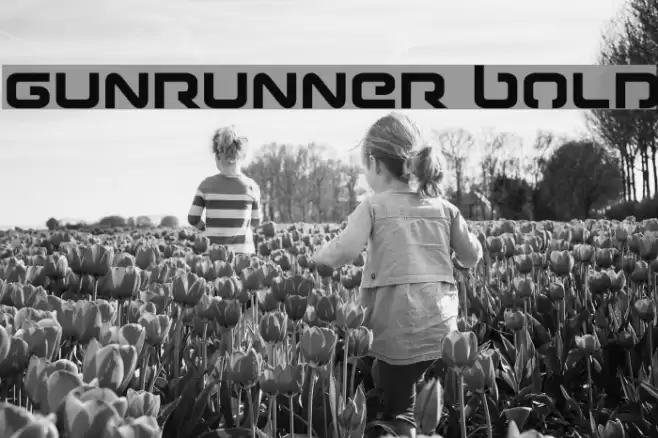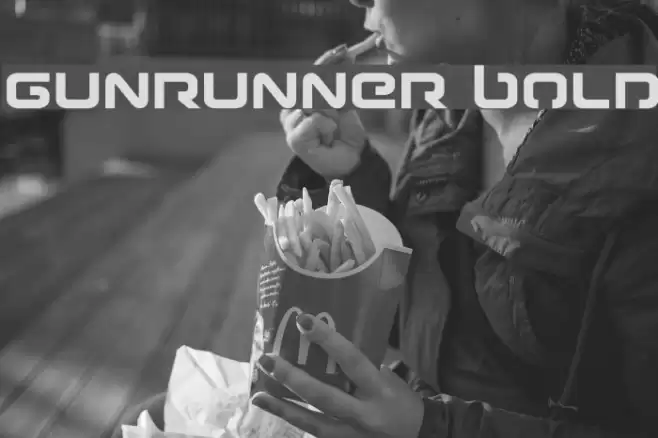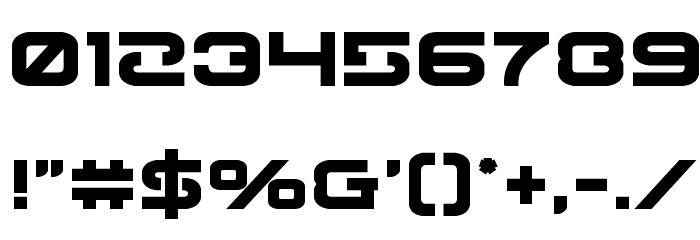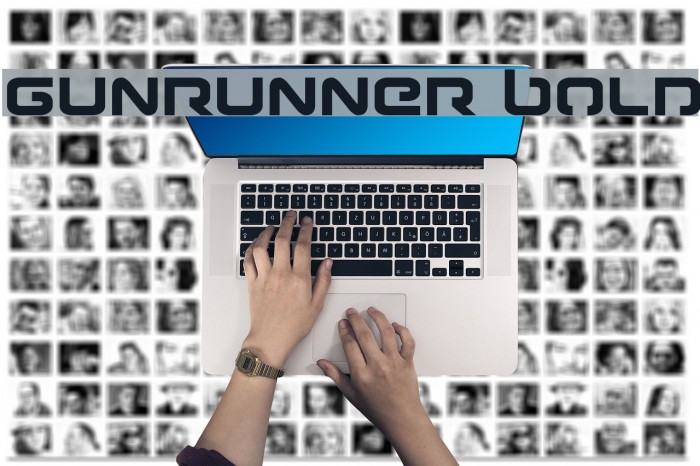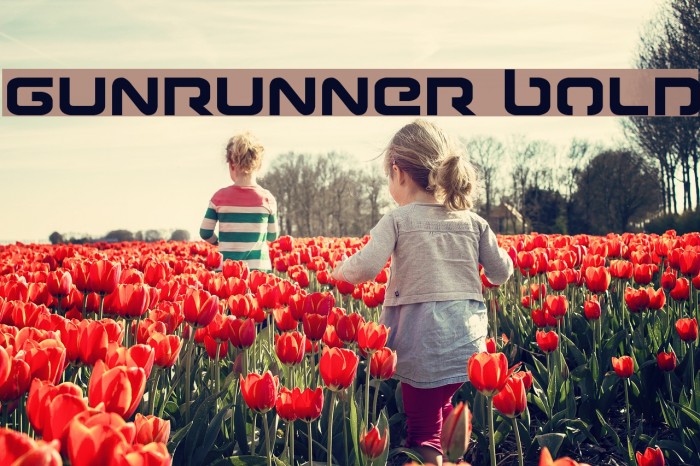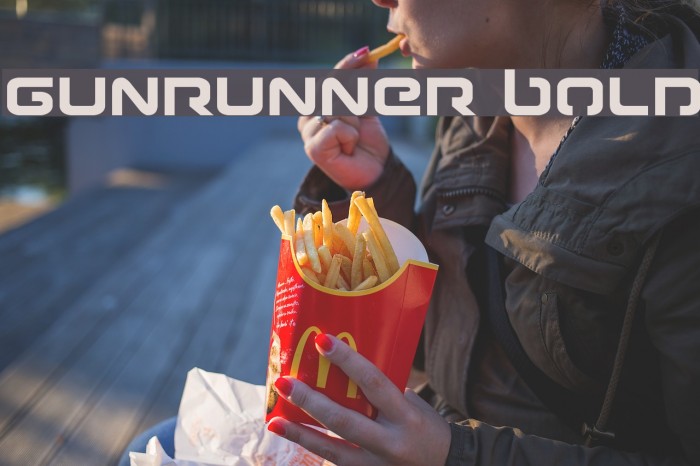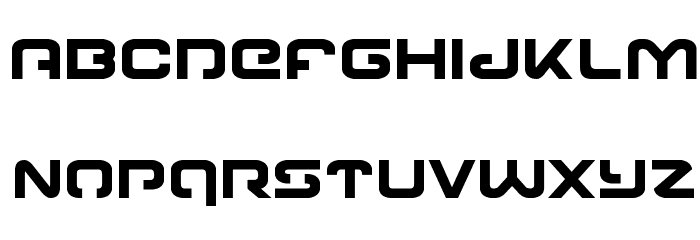
Gunrunner Bold Font
Gunrunner Bold Description
This font features a bold and futuristic design with a geometric structure. The characters are crafted with sharp angles and clean lines, giving it a modern and tech-inspired appearance. The uppercase and lowercase letters maintain a consistent style, while the numbers and special characters complement the overall aesthetic. The font's distinct look makes it suitable for projects that require a strong and impactful visual presence.
A bold, futuristic font with sharp angles and a geometric design from Sci-fi fonts.
- Proposed Projects: Ideal for technology branding, video game titles, sci-fi posters, and modern logos.